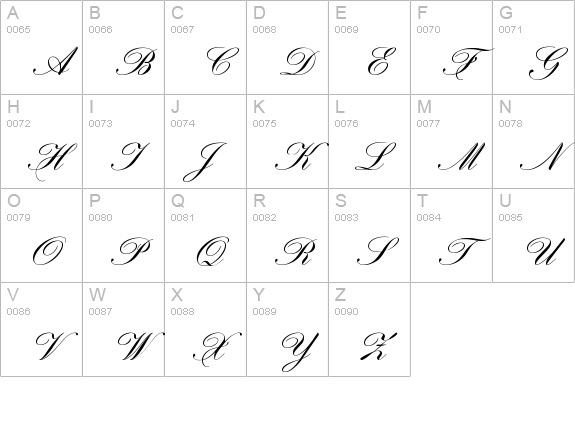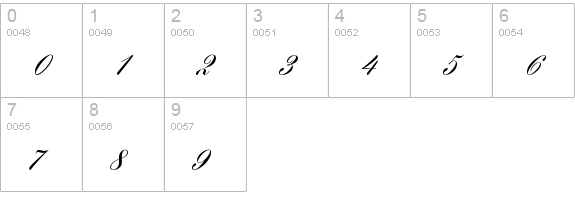
HogarthScriptEF Font Details
HogarthScriptEF font is a stunning and elegant script typeface that exudes sophistication and charm. With its flowing curves and intricate details, this font is perfect for adding a touch of class to any project. Whether you're designing invitations, packaging, or branding materials, HogarthScriptEF will bring a touch of luxury to your creations. Best of all, this exquisite font is available for free download at FontsMarket.com. Don't miss out on the opportunity to elevate your designs with the timeless beauty of HogarthScriptEF. Download it today and let your creativity flourish with this exceptional typeface.